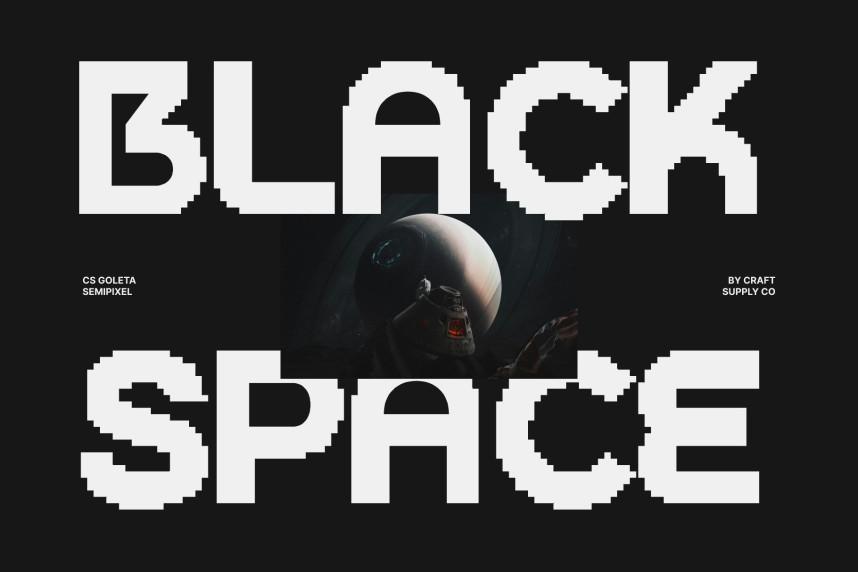
CS Goleta Semipixel Font
CS Goleta Semipixel Font – Modern Sans Serif Font: Where Geometric Precision Meets Playful Digital Style
Crisp Geometry with Fresh Personality
This is a modern sans serif font built with crisp geometric lines that create a confident, contemporary presence. Enhanced by quirky details and a fresh personality, its clean structure feels both professional and expressive, making it an excellent choice for designs that seek modern clarity with a distinctive creative edge.
Semipixel Design with Smooth Digital Aesthetics
This font combines the structured appeal of pixel-inspired squares with smooth curves and refined modern detailing. Unlike traditional pixel fonts with rigid blocky forms, this hybrid approach softens the geometry, resulting in a clean, polished appearance that feels both digital and approachable. The balance between precision and fluidity gives the typeface a unique futuristic charm.